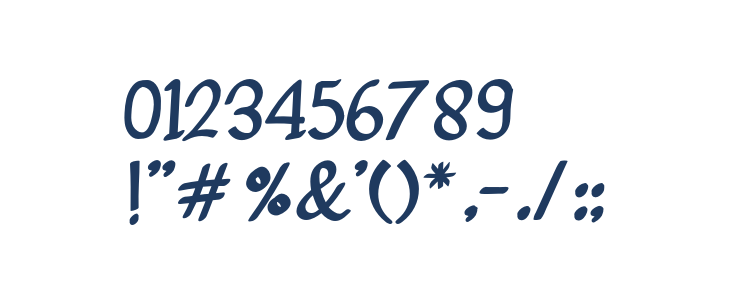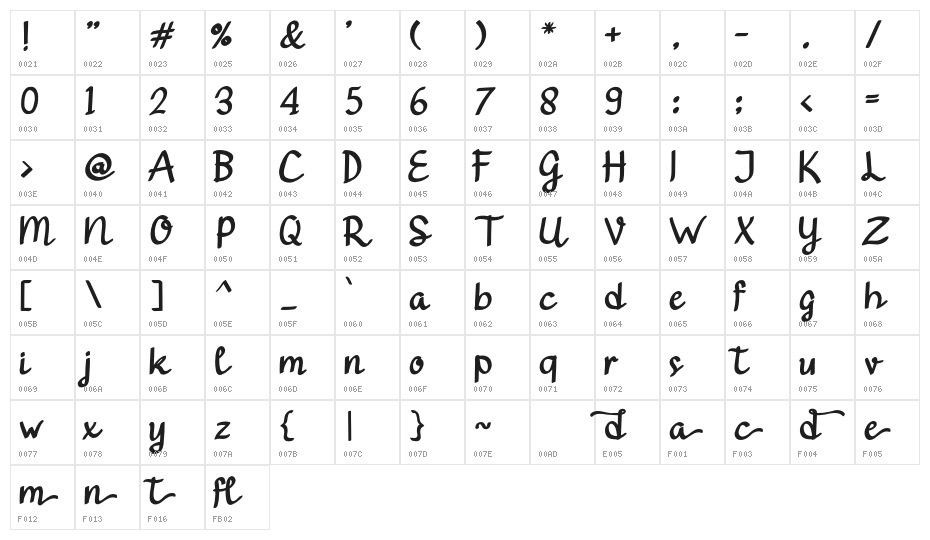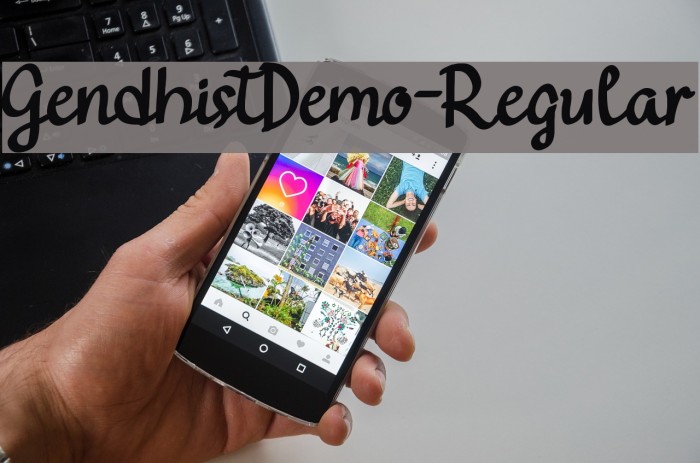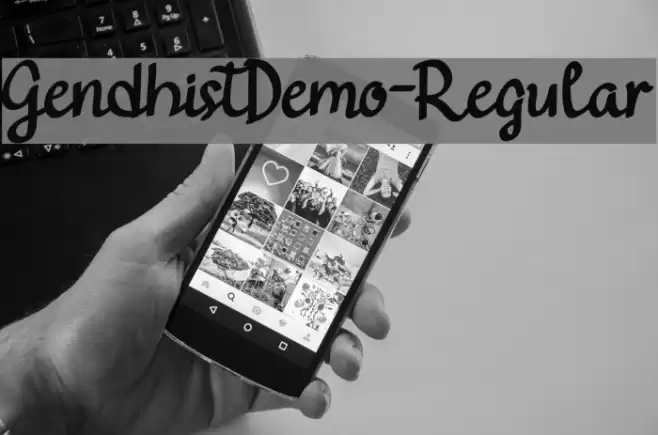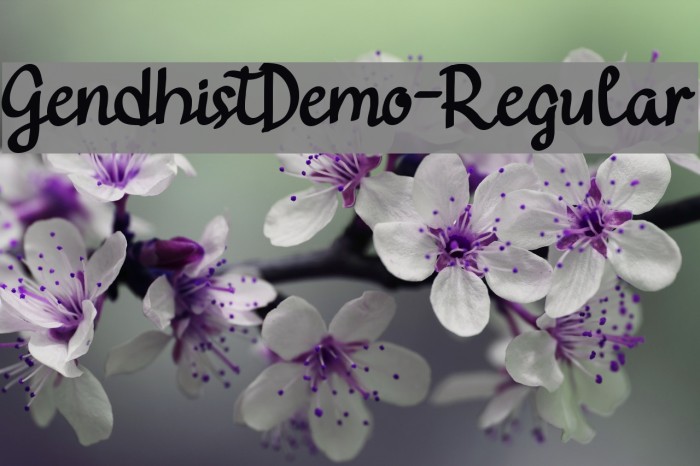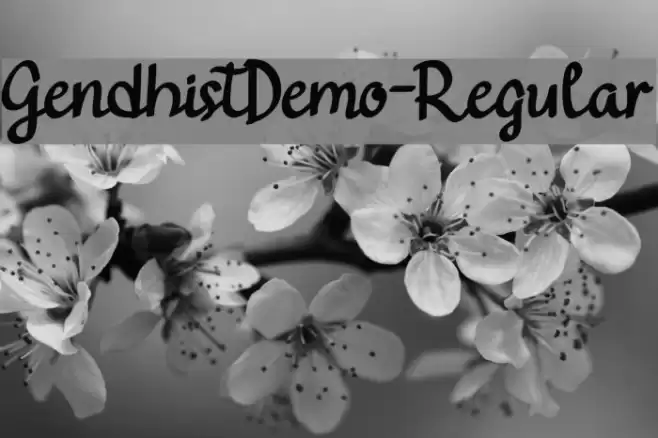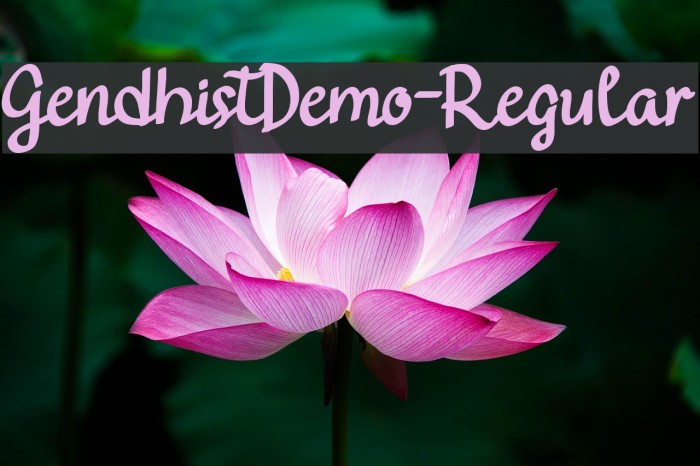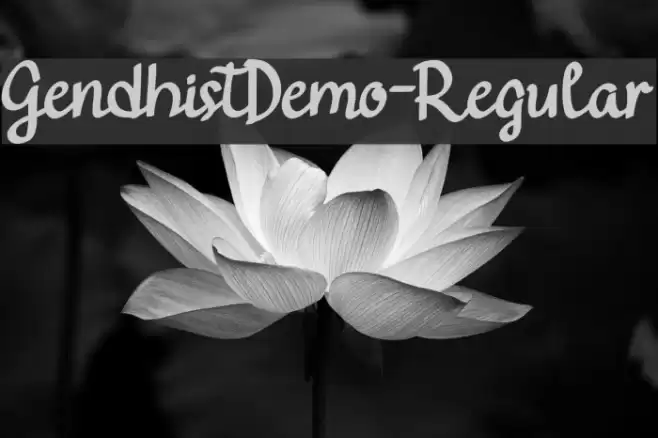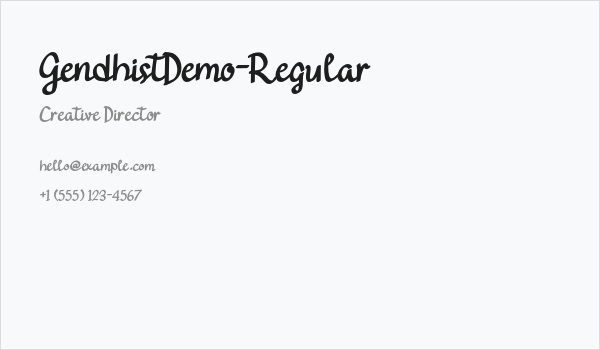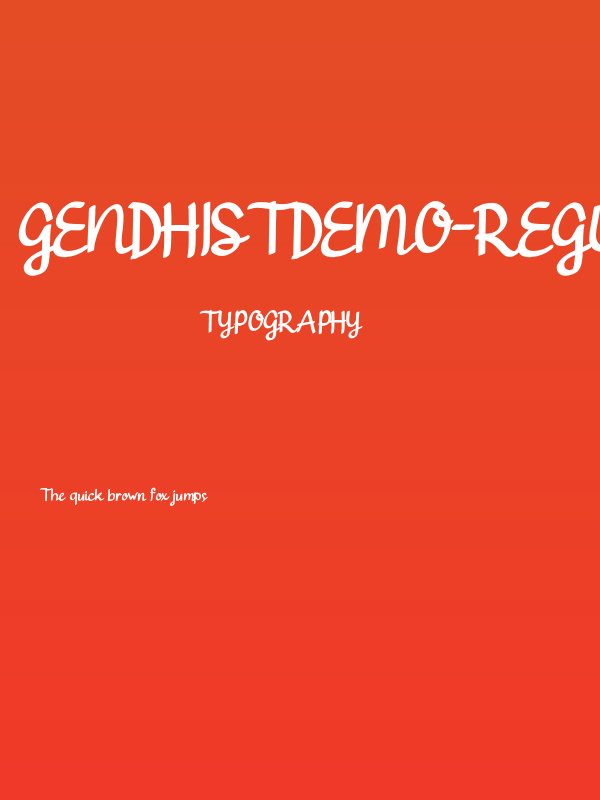
GendhistDemo-Regular Font
GendhistDemo-Regular Description
This font features a playful and dynamic handwritten style, characterized by its fluid and slightly irregular strokes. The letters have a casual, yet artistic appearance, with a slight slant that adds to its informal charm. The uppercase and lowercase letters are well-balanced, maintaining a consistent flow throughout. The numerals and special characters complement the overall aesthetic, making it versatile for various creative applications. Its unique style is perfect for projects that require a personal touch, such as invitations, greeting cards, or artistic branding.
| Use Case | Headlines, Logos, Artistic projects |
| Proposed Projects | Ideal for invitations, greeting cards, artistic branding, and creative projects. |